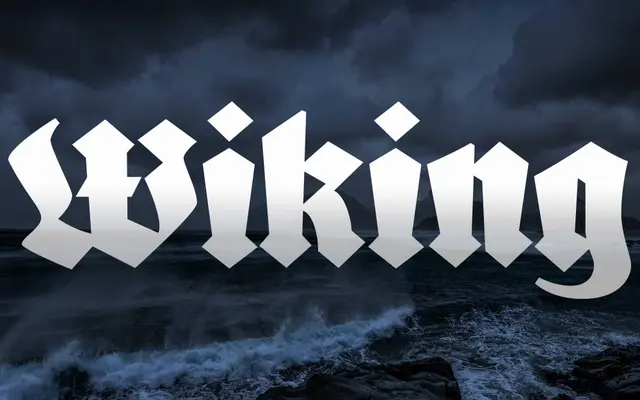
FDI Wiking
FDI Type Foundry · Heinz König, Ralf Herrmann · 2020
A free revival of Heinz König's 1925 blackletter Wiking, carefully redigitised by Ralf Herrmann with around 400 glyphs covering Western, Eastern and Central European Latin.
Originally issued by J. D. Trennert & Sohn in Hamburg in 1925, Wiking was digitised directly from an original letterpress print for this release. The single style carries around 400 glyphs and includes stylistic alternates that allow both traditional German blackletter conventions and more legible international typesetting. Funded through Kickstarter and distributed under the Open Font License.
A blackletter revival of a 1925 design from J. D. Trennert & Sohn; the original Wiking sits firmly in the German blackletter tradition with textura characteristics suited to display and headline use.